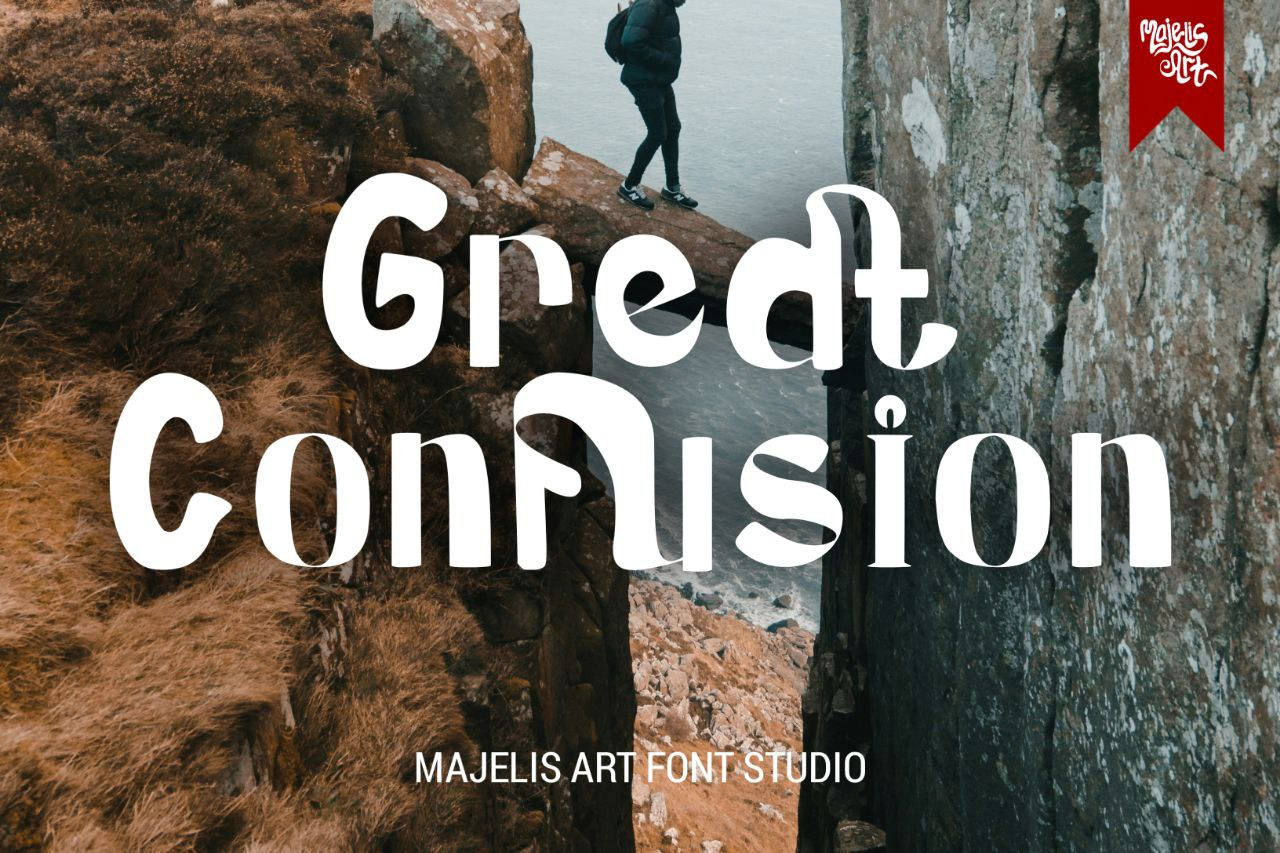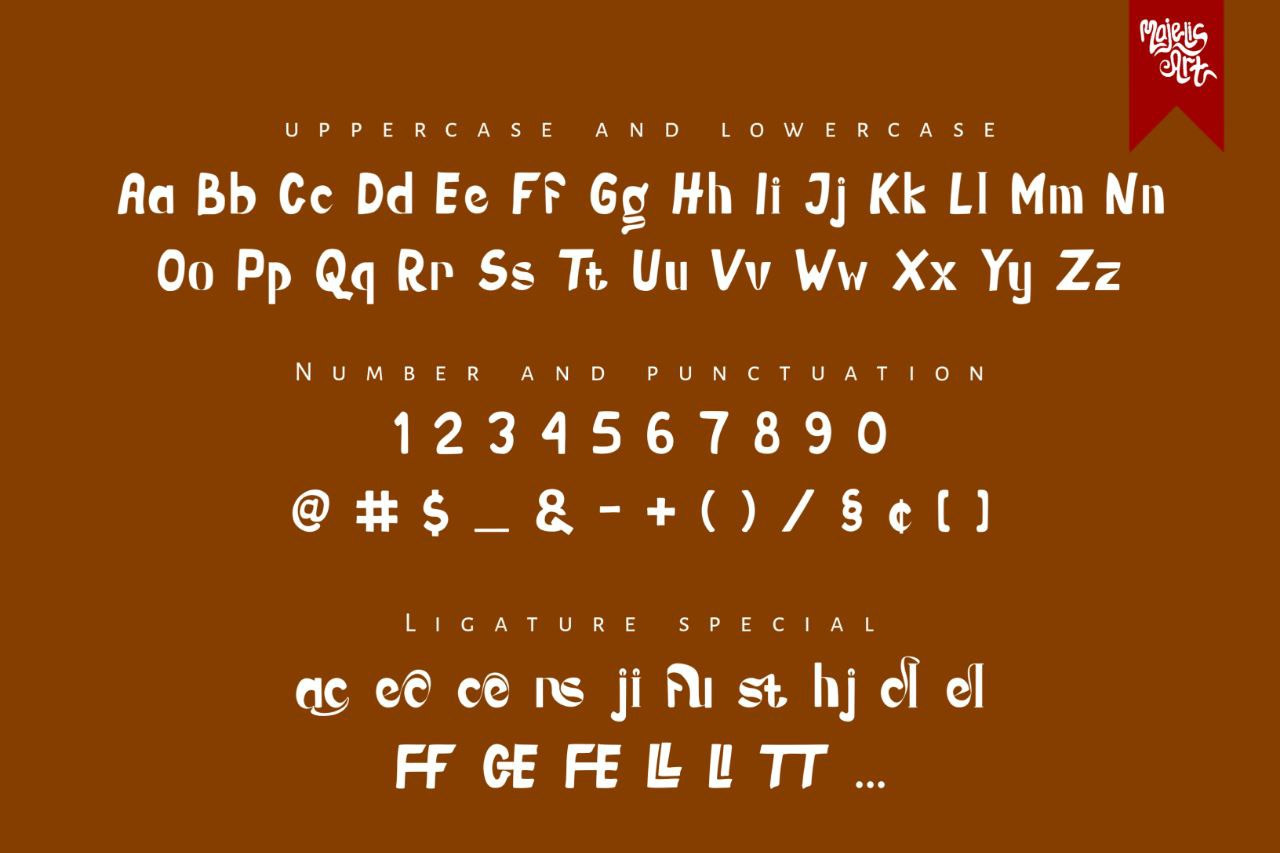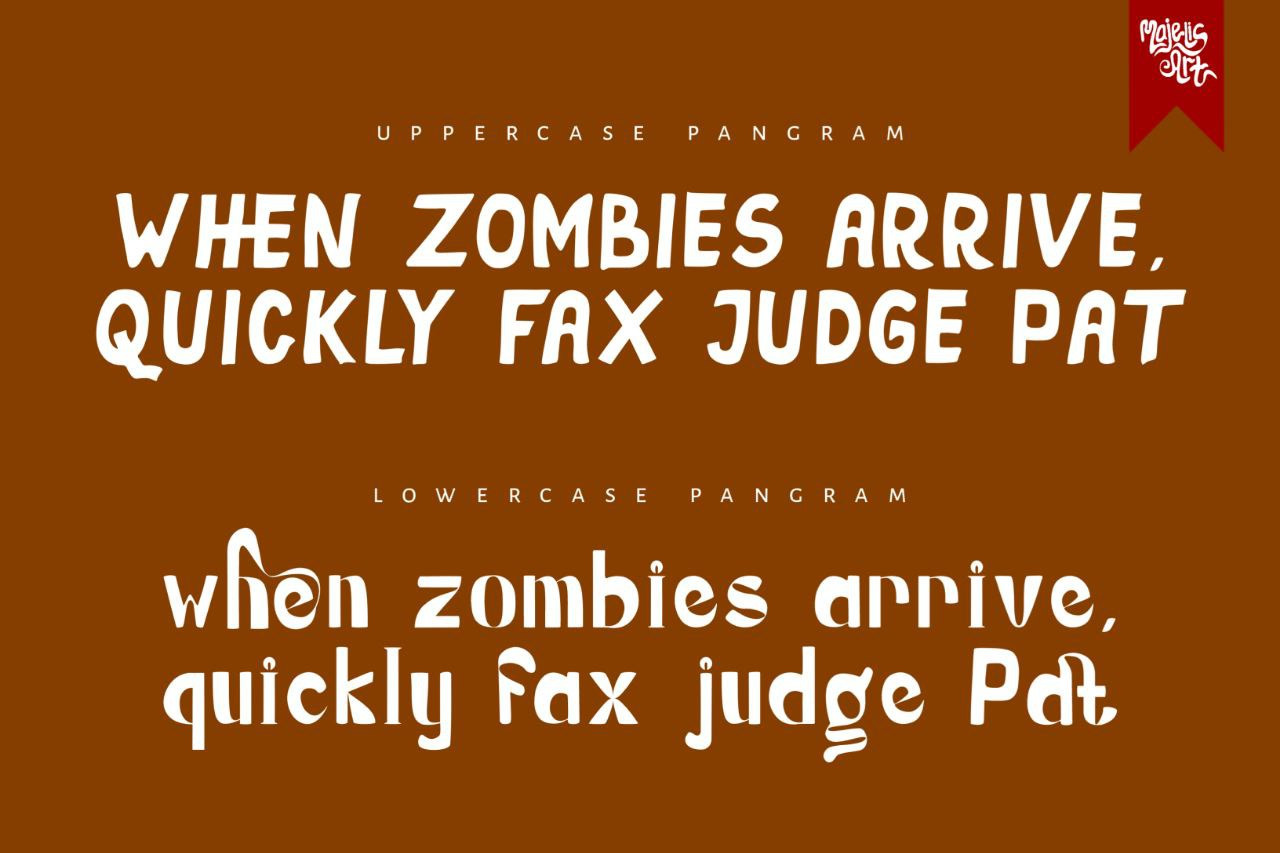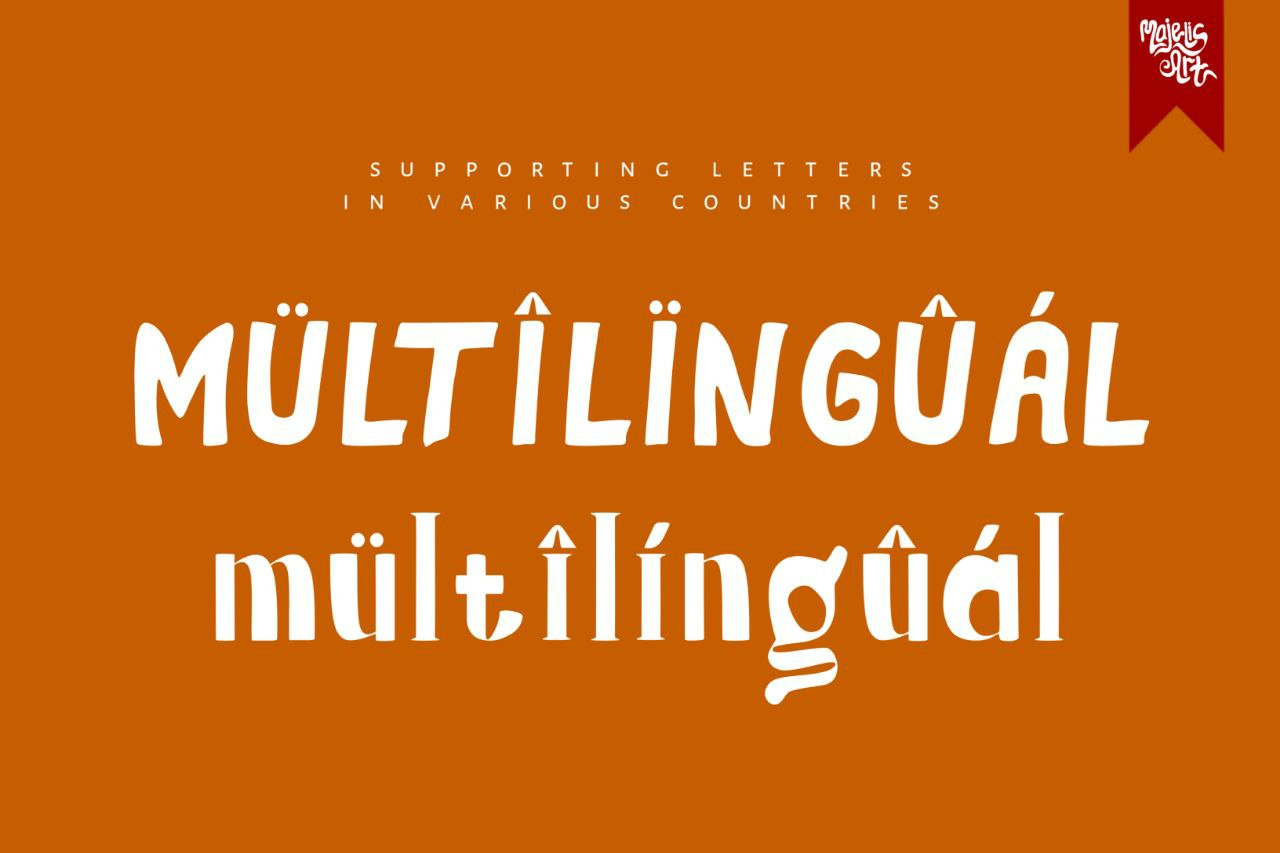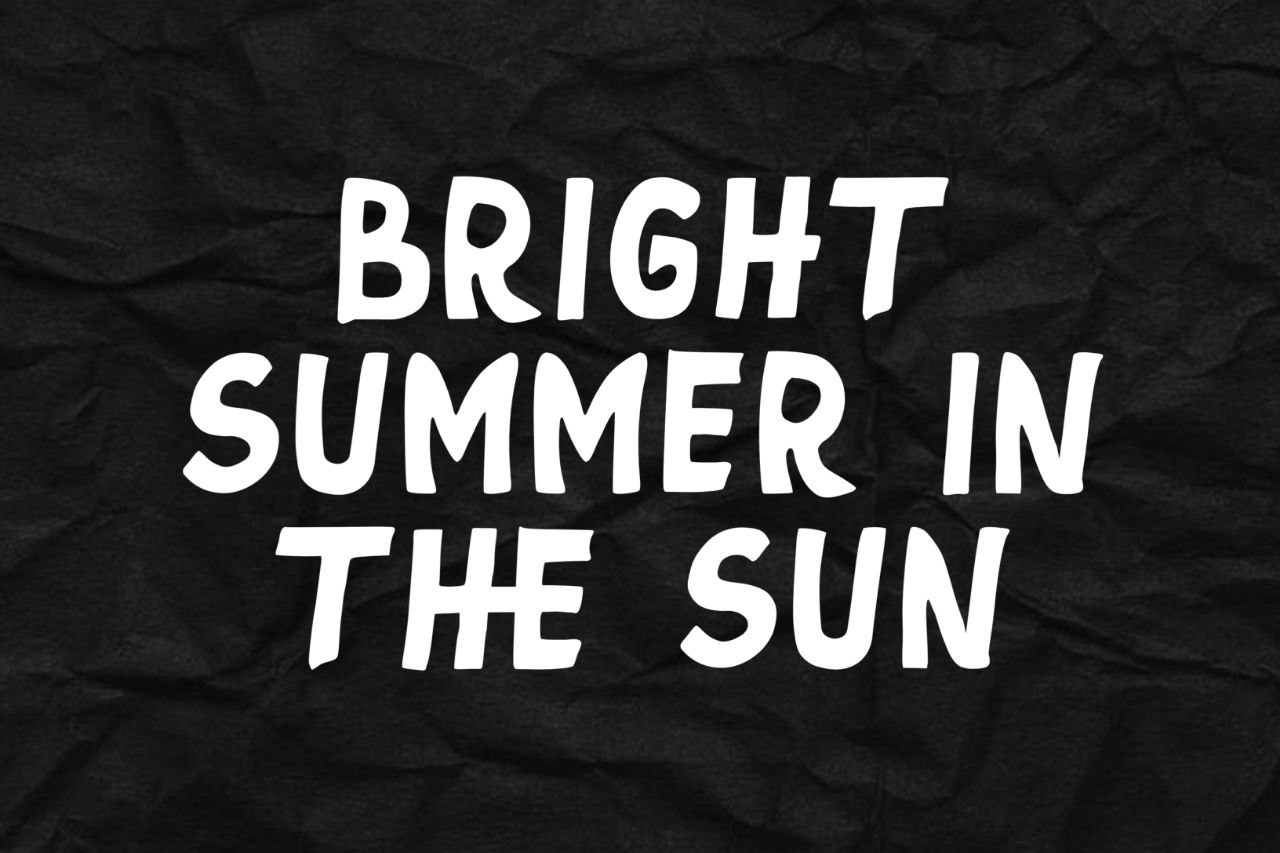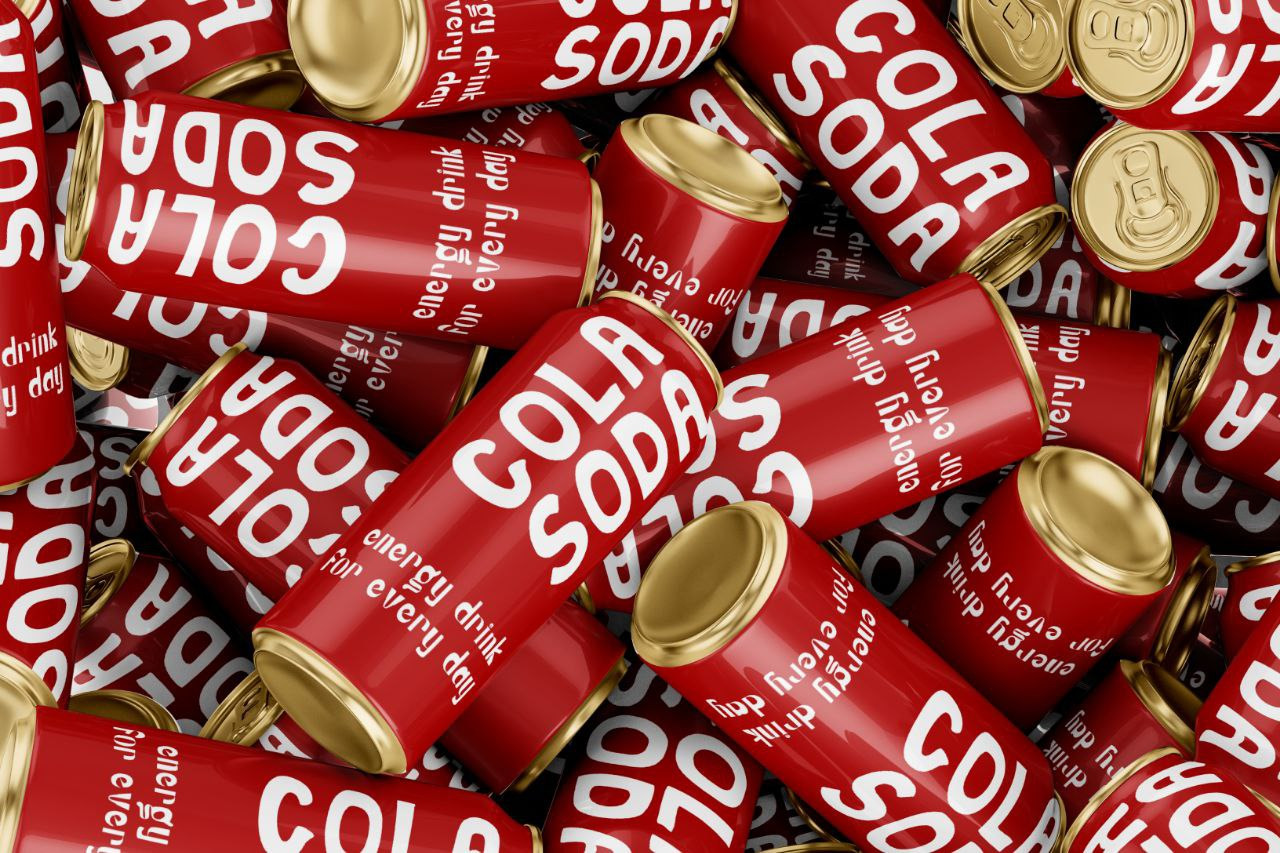
Great Confusion Font
Introducing our font, "Great Confusion". This font is the result of our handwriting using a marker with solid ink. Which makes it more attractive, this is for the capital letters. As for the lowercase letters, we used a marker with a little editing on the computer so that it almost resembles a serif.